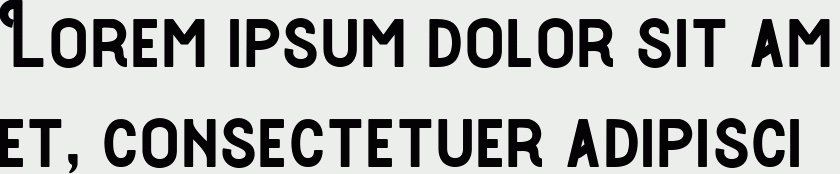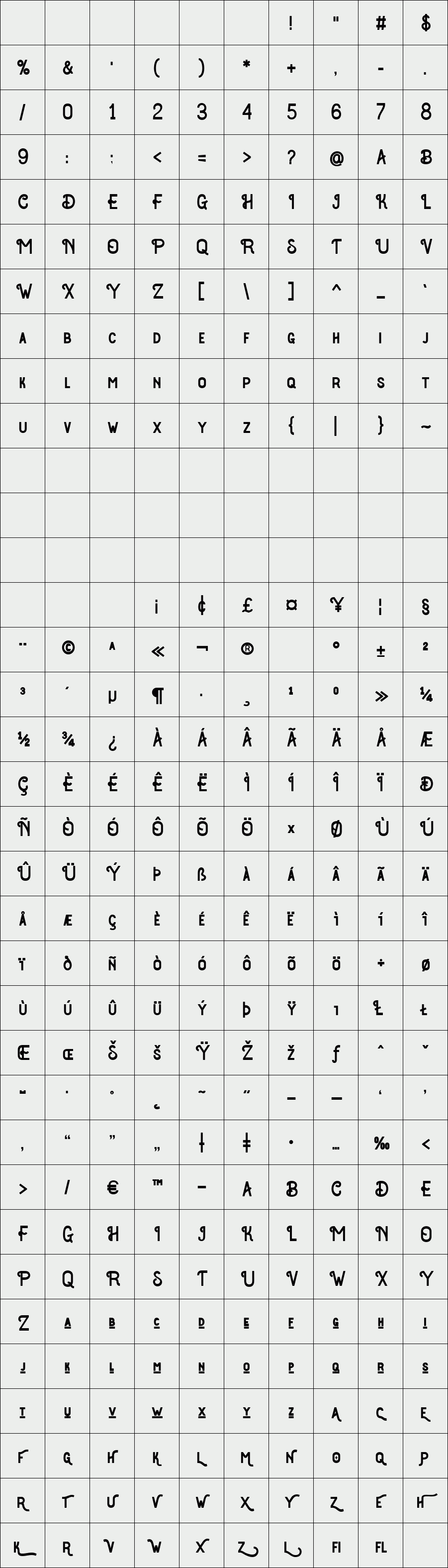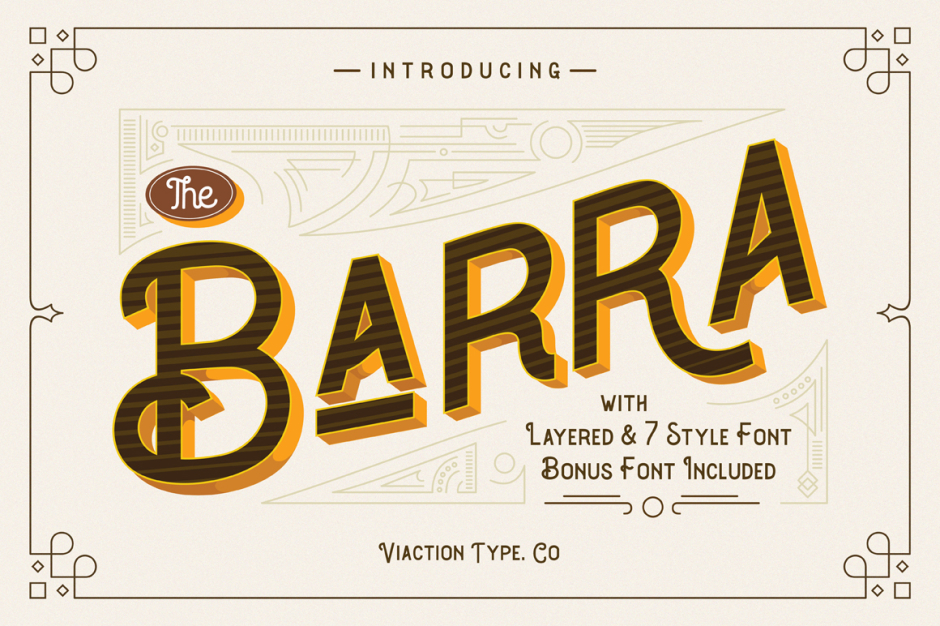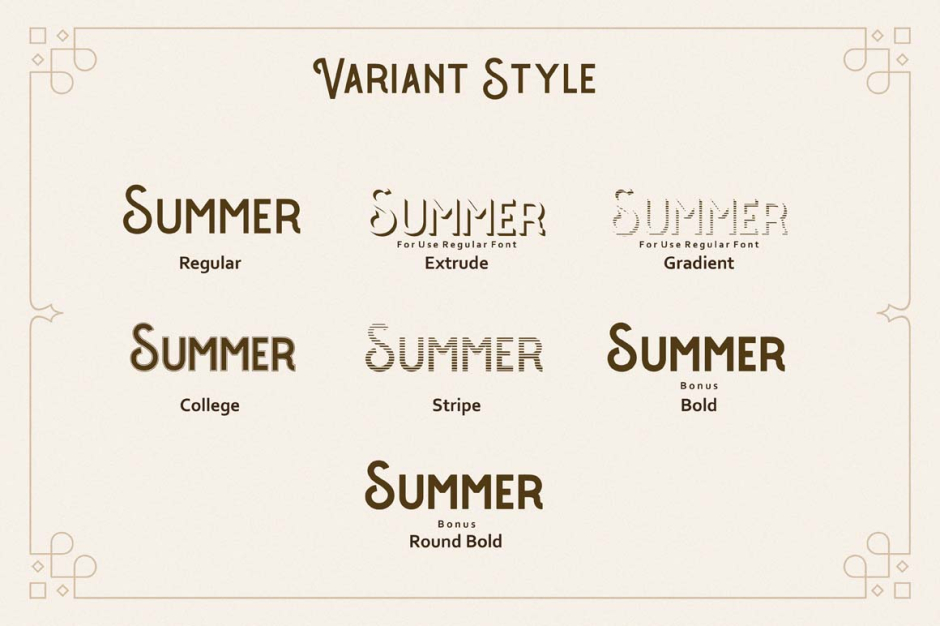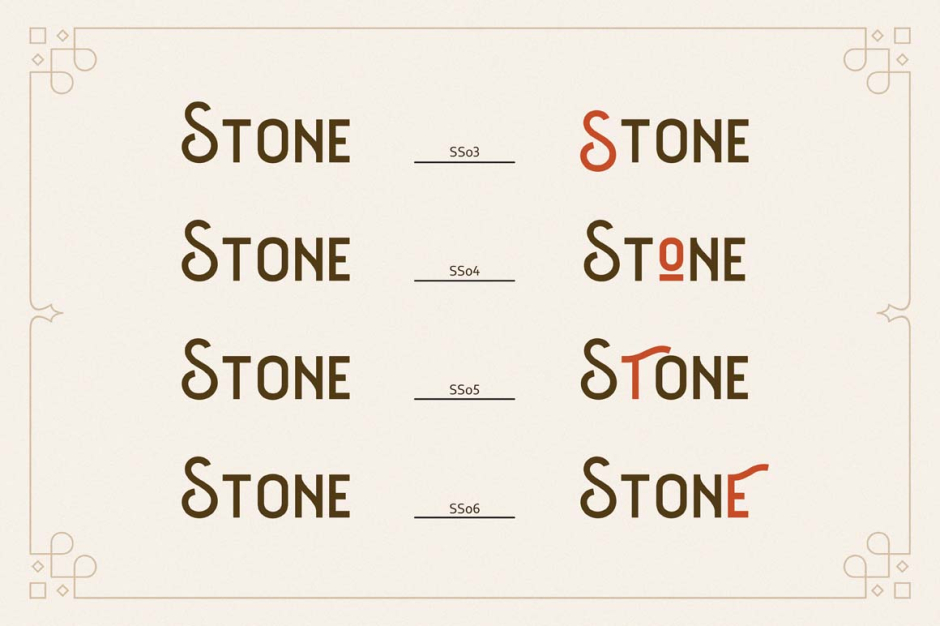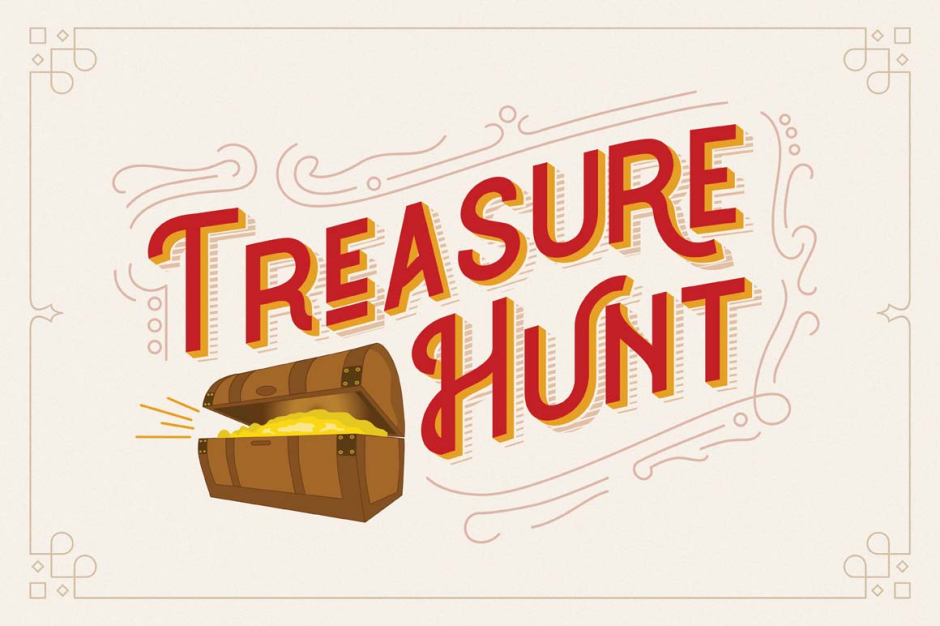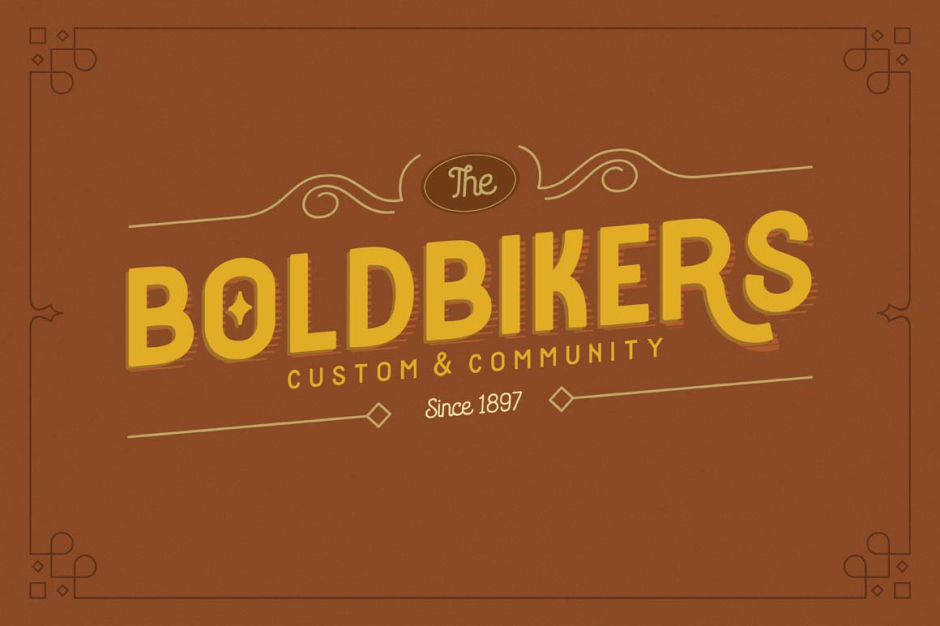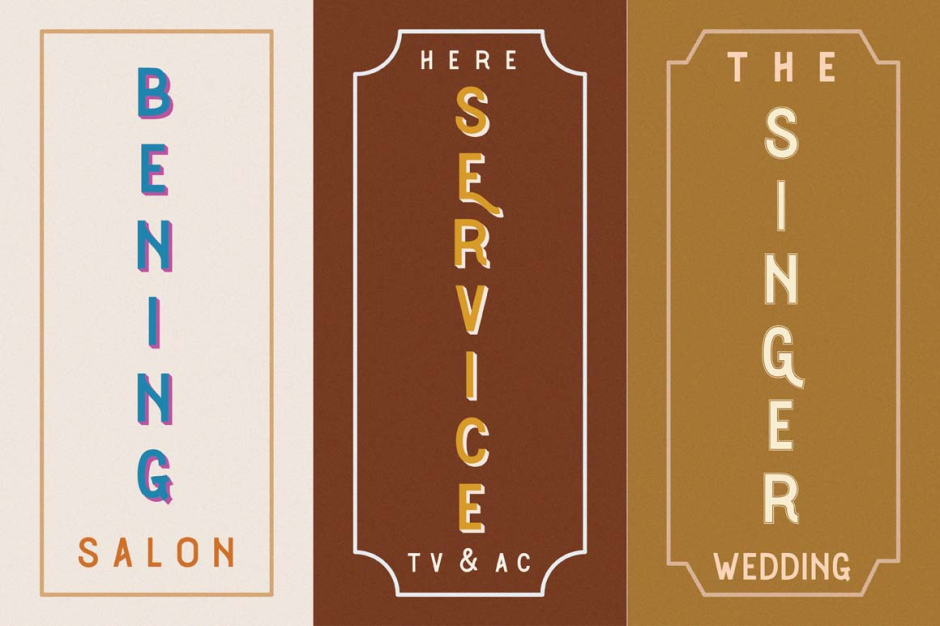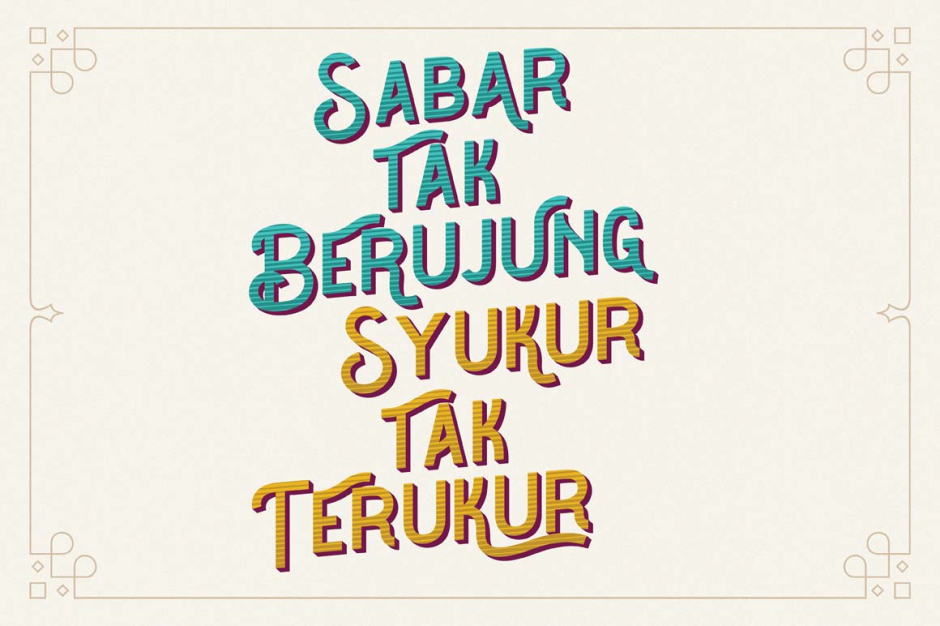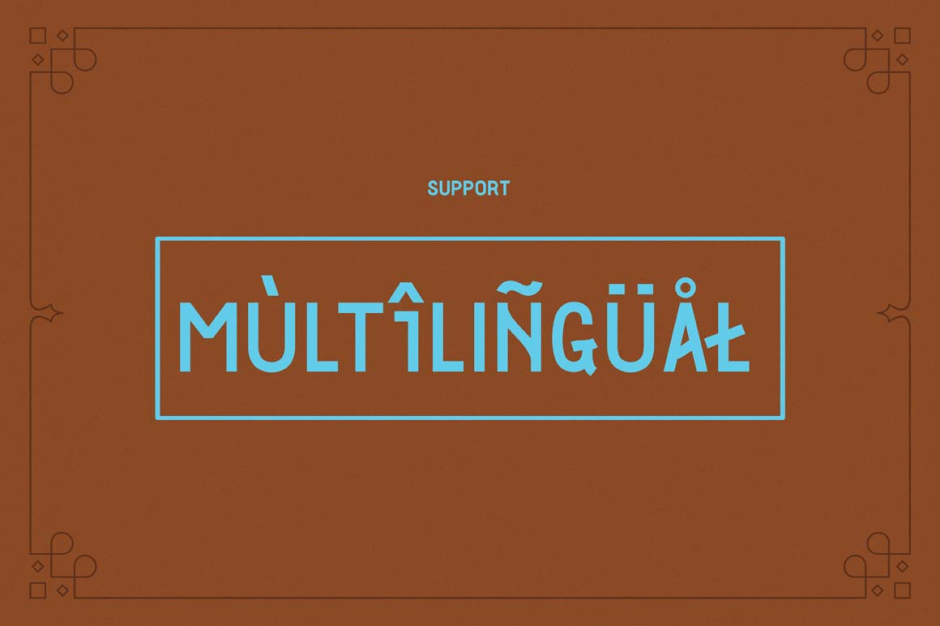
The Barra
/ Barra Bold Round
The Barra is a letter with original sign painter style, nice applied in various products. Complete with multilingual characters, stalistic set, punctuation and symbol . It is suitable for quote, clothing design, vintage logo, label, poster, packaging design and other designs.
Features
Uppercase
Lowercase
Multilingual
Punctuation & Symbol
Stylistic Set